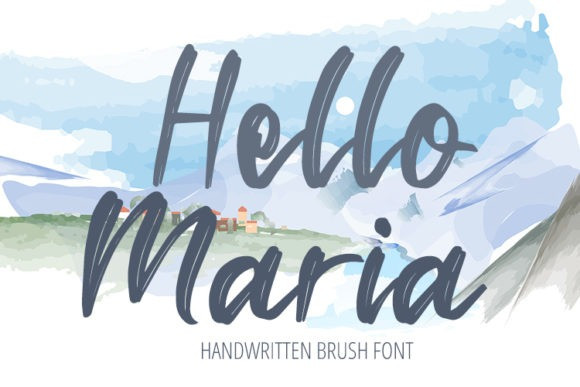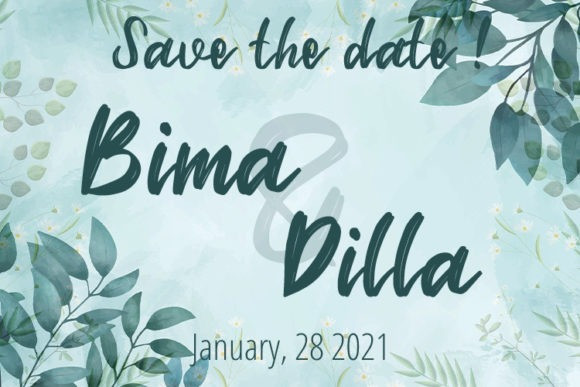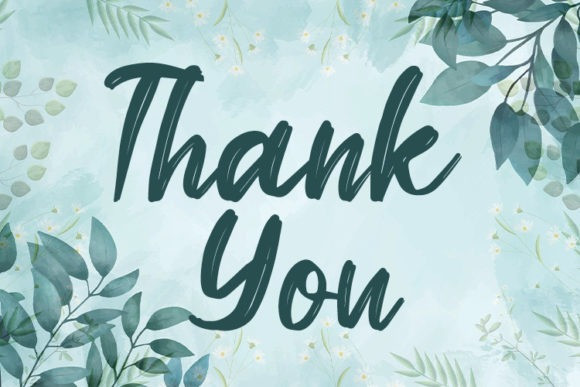
Galisha Font
Galisha Font is a stunning script with an elegant feel. Get inspired by its timeless charm!  Perfectly fit for branding, logo, wedding things, greeting cards, fashion, lookbook, marketing promotion, anytime you want to look fancy elegant but still casual.